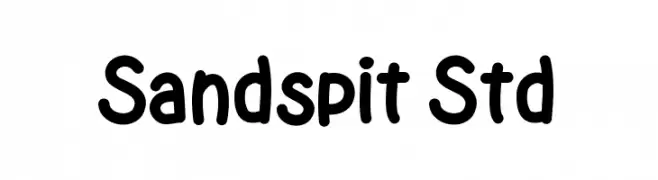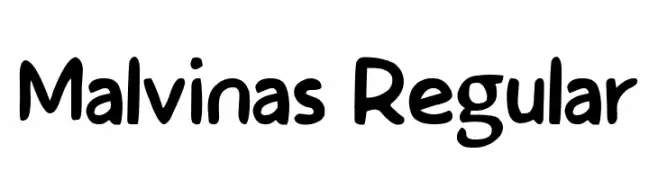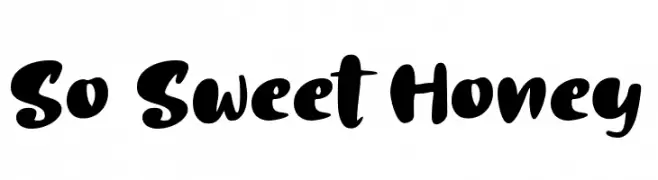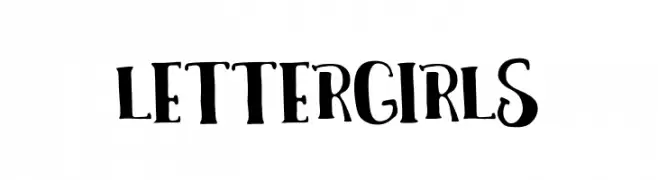
( Fonts by Lambert )
A bold, playful font with rounded, hand-drawn characters.
( Fonts by Nico Muslib )
A playful, rounded font with smooth curves and a friendly appearance.
( Fonts by Lettersiro Studio )
A bold, playful handwritten font with smooth, rounded edges and a lively appearance.
( Fonts by Rachma BT )
A playful, hand-drawn style with bold, uneven strokes and a whimsical charm.